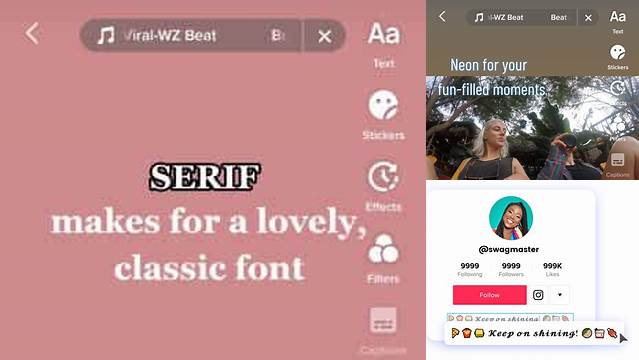
TikTok Fonts: The Ultimate Guide To Level Up Your Captions
Hey TikTokers! Want to make your TikTok profile and content pop? One of the easiest ways to do that is by playing around with TikTok fonts. A cool font can instantly grab attention and make your captions, bio, and videos stand out from the crowd. But how do you actually change the fonts on TikTok? Don't worry, guys, it's easier than you think! This comprehensive guide will walk you through everything you need to know about TikTok fonts, from the built-in options to third-party tools, so you can unleash your creativity and express your unique style. Let’s dive in and explore the world of TikTok fonts!
Why Font Choice Matters on TikTok
Before we jump into the how, let's talk about the why. Why is choosing the right TikTok font so important? Think of it this way: your font is part of your brand. It's a visual element that communicates your personality and style. A playful, bubbly font might be perfect for a fun, lighthearted account, while a bold, modern font could suit a more serious or professional profile. Fonts can also impact readability. A clear, easy-to-read font ensures your message gets across, while a fancy, overly stylized font might confuse your viewers. So, when you’re crafting content, pay attention to the TikTok font you’re using because it does make a difference! By strategically using TikTok fonts, you can create a consistent visual identity that resonates with your audience. For example, if you are running a business account, you might want to choose a font that aligns with your brand's aesthetic. If you're a content creator focusing on a specific niche, the right font can help reinforce your message and appeal to your target audience. Ultimately, the font you choose can impact how viewers perceive your content, making it a crucial element to consider in your TikTok strategy. Don't underestimate the power of TikTok fonts in creating a memorable and impactful presence on the platform.
Built-In TikTok Fonts: What's Available?
Tiktok provides several built-in TikTok font options that you can use directly within the app. While the selection isn’t massive, there are enough choices to add some personality to your text. To access these fonts, start creating a new video or editing an existing one. When you add text to your video, you'll see a TikTok font menu appear. Tap through the options to preview how each font looks. Some of the standard fonts you'll find include classic styles like Serif and Sans-Serif, which are clean and easy to read. There are also more playful fonts like Handwriting and Typewriter, which add a touch of personality. TikTok often updates its font selection, so keep an eye out for new additions! It's worth experimenting with different fonts to see what best suits your video's theme and your personal style. For instance, a handwriting TikTok font might be perfect for a vlog-style video, while a sans-serif font could be a better choice for educational content. Don't be afraid to mix and match fonts across different videos to keep things interesting! Remember, TikTok font choice is a way to enhance your message, so think about the tone and mood you want to convey. Using the built-in TikTok font options is a quick and easy way to level up your text game. They are readily available and require no extra tools or apps, making them perfect for on-the-go content creation. By familiarizing yourself with these options, you can start incorporating different fonts into your videos to add visual appeal and personality.
Step-by-Step Guide: Changing Fonts in TikTok
Okay, let's get practical! Changing TikTok fonts is super simple. First, record your video or upload one from your gallery. Once you're in the editing screen, tap the "Text" icon. A text box will appear, and you can type in your caption. Now, look for the TikTok font options – they're usually displayed at the bottom of the screen. You'll see a list of available fonts, and you can tap on each one to preview how it looks in your text box. Choose the TikTok font that best fits your vibe and message. You can also adjust the size, color, and alignment of your text within this menu. TikTok also allows you to add background colors and outlines to your text, which can make it even more eye-catching. Don't forget to play around with different font colors to ensure your text is readable against the background of your video. Sometimes, a simple white font on a dark background can make a huge difference! Another trick is to use different fonts for different parts of your caption to emphasize certain words or phrases. For example, you could use a bold font for the main point and a more subtle font for the supporting details. Once you’re happy with your TikTok font and text formatting, you can drag the text box to position it where you want it on the screen. You can also use the pinch gesture to resize the text box. Finally, tap "Done," and your text will be added to your video with your chosen TikTok font. It's all about experimentation, so don't be afraid to try different combinations until you find what works best for you. Mastering TikTok font changes is a quick way to add polish and professionalism to your videos.
Using Third-Party Apps for More Font Options
Want even more font choices? That's where third-party apps come in handy! There are tons of apps available on both the App Store and Google Play that offer a wider variety of TikTok fonts than the built-in options. Apps like Cool Fonts, Fontsy, and Stylish Text provide access to hundreds of unique fonts that you can copy and paste into your TikTok captions and bio. The process is usually pretty straightforward. First, download and install the TikTok font app of your choice. Then, open the app and type your text. You'll see a list of fonts to choose from. Once you've selected your favorite TikTok font, copy it to your clipboard. Now, head back to TikTok and paste the text into your caption or bio. Keep in mind that some fonts might not display correctly on all devices, so it’s always a good idea to double-check how your text looks on different screens. Also, be aware that using too many different fonts in one caption or bio can look cluttered and unprofessional. Stick to one or two fonts to maintain a clean and cohesive look. Third-party apps can be a fantastic resource for TikTok fonts, but it's important to use them responsibly. Some apps may contain ads or in-app purchases, so be sure to read reviews and understand the app's features before downloading. However, with a little caution, these apps can open up a world of creative possibilities for your TikTok content. Experimenting with different TikTok font styles from third-party apps can help you discover unique fonts that truly represent your brand and personality.
Font Generators: A Quick Way to Create Stylish Text
Another cool trick for getting awesome TikTok fonts is using online font generators. These websites let you type in your text and then generate a variety of stylish fonts that you can copy and paste into TikTok. Some popular font generators include LingoJam, CoolSymbol, and Fonts for Instagram (which also works for TikTok!). Using a TikTok font generator is super easy. Just visit the website, type your text into the input box, and scroll through the generated fonts until you find one you love. Then, simply copy the TikTok font and paste it into your TikTok caption or bio. Font generators are great because they offer a huge range of styles, from fancy calligraphy to bold, futuristic fonts. They're also a quick and convenient option if you don't want to download a separate app. However, just like with third-party apps, it’s important to be mindful of readability. Some highly stylized TikTok fonts might look cool but can be difficult for your viewers to read. Always prioritize clarity and make sure your message is easily understood. Also, keep in mind that the availability of certain characters and symbols may vary depending on the font generator you use. Some generators might not support emojis or special characters, so you may need to use a different tool for those. Overall, font generators are a fantastic resource for adding flair to your TikTok text. They provide a simple and accessible way to experiment with different TikTok fonts and find the perfect style to match your content. By using font generators wisely, you can elevate the visual appeal of your TikTok presence and make a lasting impression on your audience.
Pro Tips for Using Fonts on TikTok
Alright, guys, let's wrap things up with some pro tips for using TikTok fonts like a total boss! First, consistency is key. Try to stick to a consistent font style across your profile and videos to create a cohesive brand identity. This doesn't mean you can't experiment, but having a signature TikTok font can help viewers recognize your content instantly. Second, think about readability. As we've mentioned before, it's crucial to choose fonts that are easy to read, especially on smaller screens. Avoid overly complex or decorative fonts that might strain the eyes. Third, use fonts to emphasize key words or phrases. Changing the font style or size can draw attention to important information in your caption. For example, you could use a bold TikTok font for a call to action or a script font for a catchy phrase. Fourth, consider the overall aesthetic of your video. The TikTok font you choose should complement the mood and style of your content. A serious video might call for a classic font, while a fun, playful video could benefit from a more whimsical font. Fifth, don't be afraid to break the rules! While these tips are helpful guidelines, the best way to find your style is to experiment and see what works for you. Try different TikTok font combinations, play with colors and sizes, and see how your audience responds. Finally, always double-check your text for typos and grammatical errors. Even the coolest font won't make up for a poorly written caption! By following these pro tips, you can use TikTok fonts to create visually appealing and engaging content that captures your audience's attention. So go ahead, get creative, and let your personality shine through your text!
Conclusion: Level Up Your TikTok Game with Fonts
So there you have it! Everything you need to know about TikTok fonts to make your profile and videos stand out. From the built-in options to third-party apps and font generators, there are tons of ways to customize your text and express your unique style. Remember, the right TikTok font can enhance your message, reinforce your brand, and grab your audience's attention. Don't be afraid to experiment, have fun, and let your creativity flow. By mastering the art of TikTok fonts, you can level up your TikTok game and create content that truly shines. Now go out there and make some awesome TikToks!